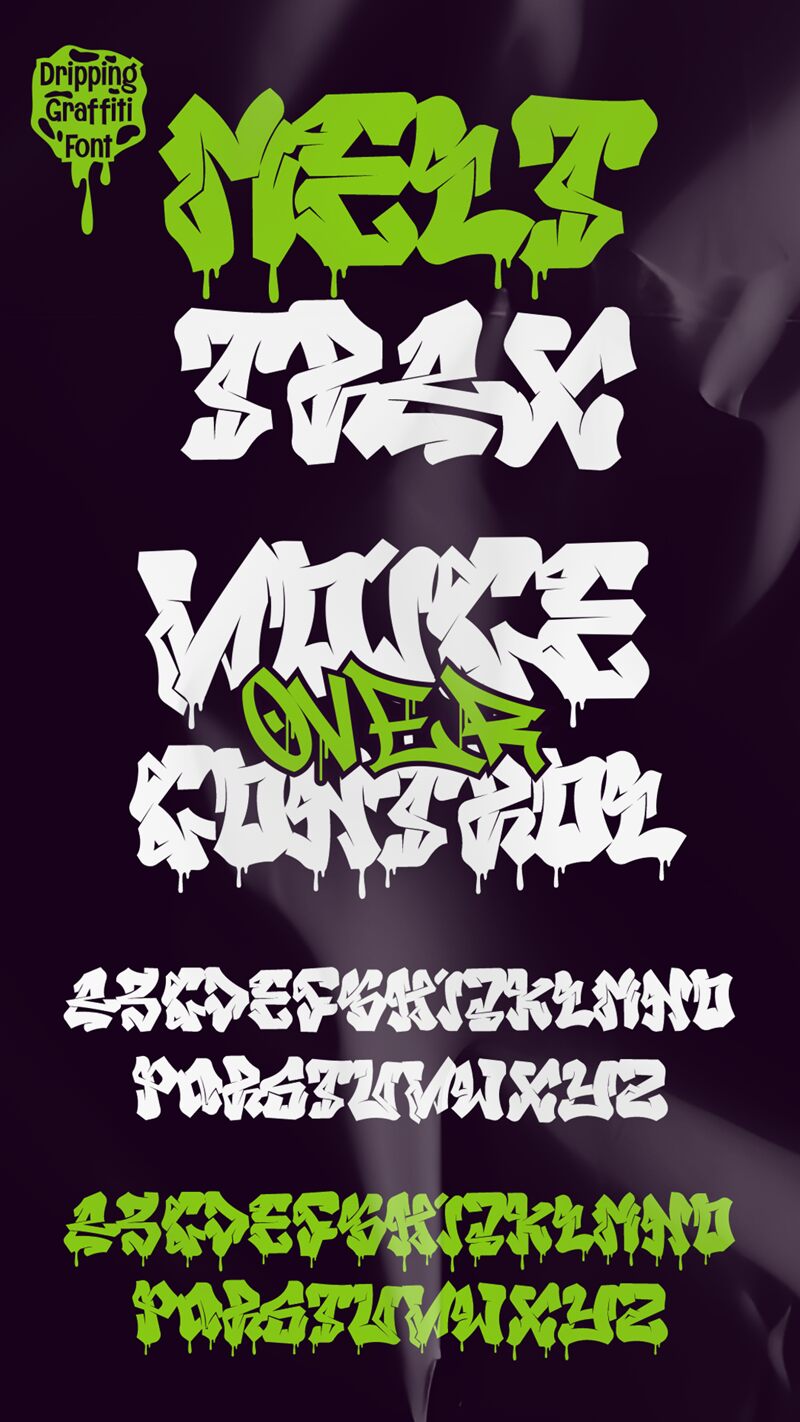
Melttrax font family, by Cikareotype Studio, features two graffiti-inspired, rebellious letter alphabets. The free font family preserves the aesthetic essence of graffiti and street culture with edgy, expressive lines which are irregular while still maintaining balance. Its youthful and dynamic letters are designed with impact, character, and boldness reflected in its two styles of different thickness levels.
Use it to design eye-catching flyers and poster designs, especially for music events, concerts, and night club parties. Give a boost of charm to stickers, merch, social media posts, and many more. Undoubtedly, the visual power of this font can be suitable for any task.